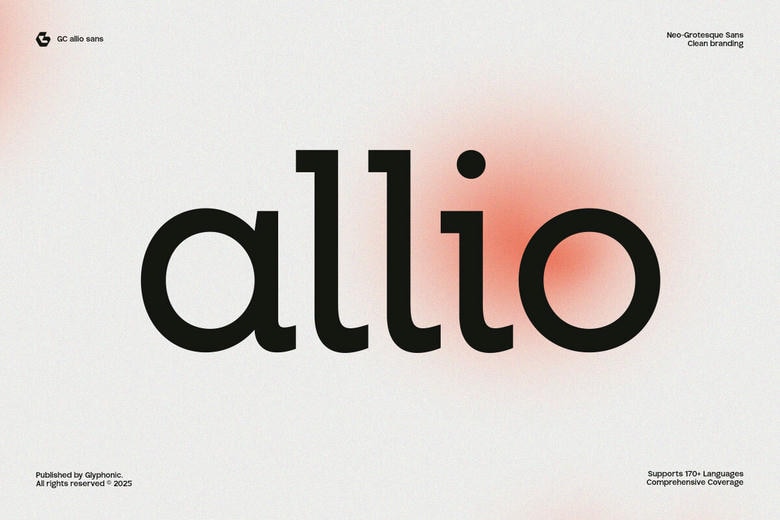
Allio Font
GC Allio font is a simple-minimalistic and clear neo-grotesque sans-serif font. Contemporary branding and clean communication are the focus of its design, and it is an ideal headline font, corporate identity, logo-, packaging-, and editorial style. Designed with the aim of appealing to the style of simplicity and elegance in the mind of the designer, it gives a smooth and outstanding impression.
GC Allio has the balance of proportions, equality of line widths and geometric but friendly curvers; GC Allio has the geometrical look of a professional but retains its accessibility. Be it lifestyle branding, screen design or plain black and white printing, the typeface has a versatile yet timeless character.
Allio Sans Serif Font